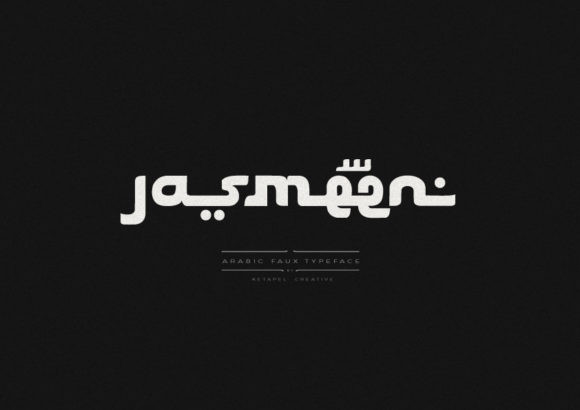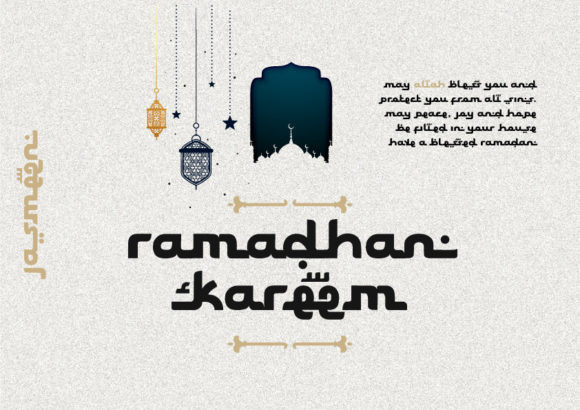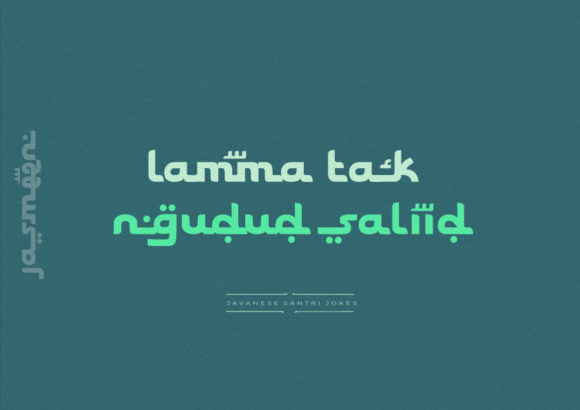
Jasmeen Font
Jasmeen is an incredibly unique, arabic inspired display font. It is defined by smooth curves and is perfect for fashion branding or editorial designs. Add it confidently to your projects, and you will love the results.